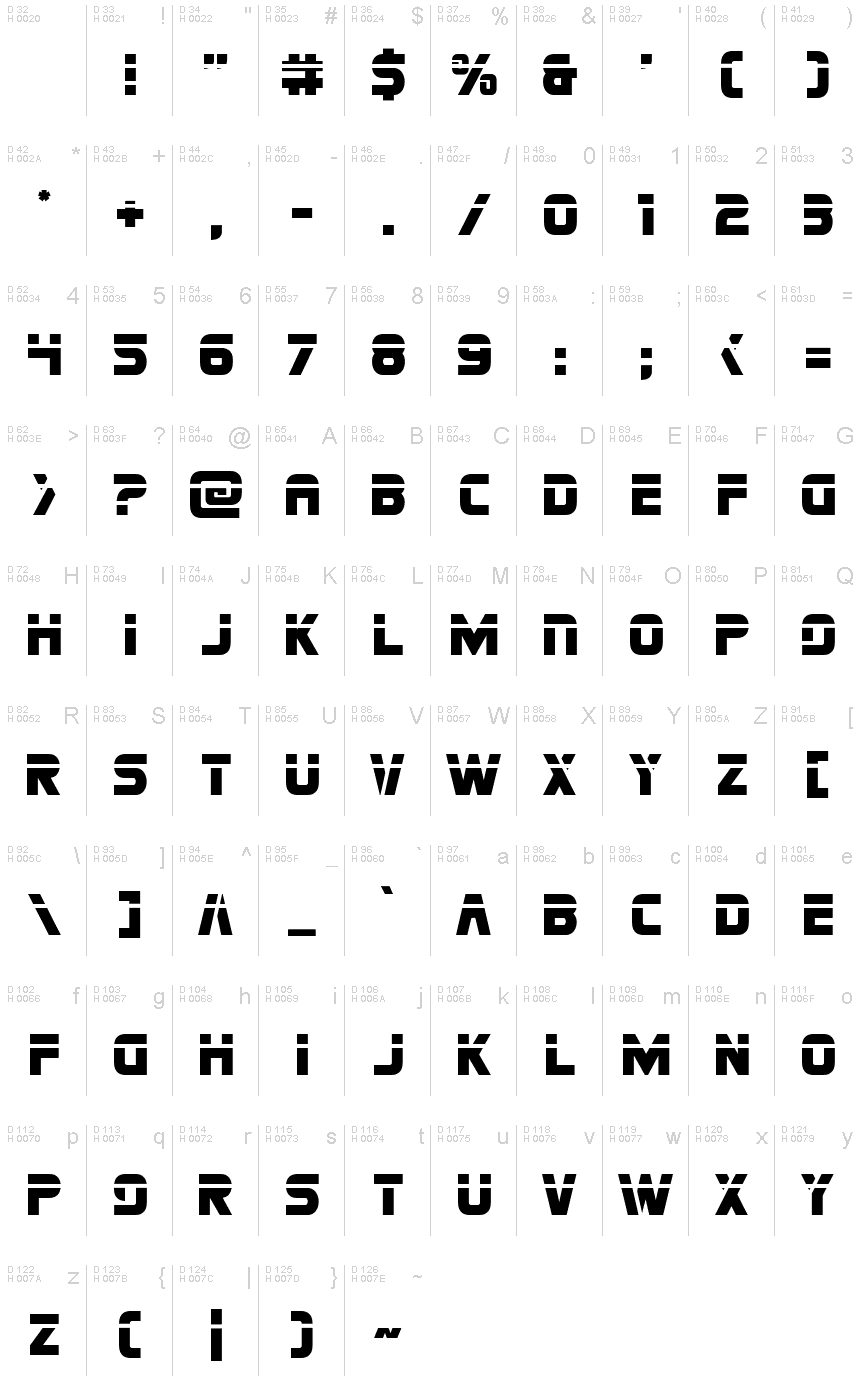
Mission: Danger Laser
The Mission: Danger Laser font is a bold, semi-expanded display typeface with a futuristic style designed by Iconian Fonts. This edgy font is perfect for projects that require a strong and adventurous feel, such as action-packed video game titles, movie posters, or science fiction book covers. The semi-expanded width adds an extra touch of uniqueness to the already striking design. Let Mission: Danger Laser take your creative projects to new heights and boldly go where no font has gone before!